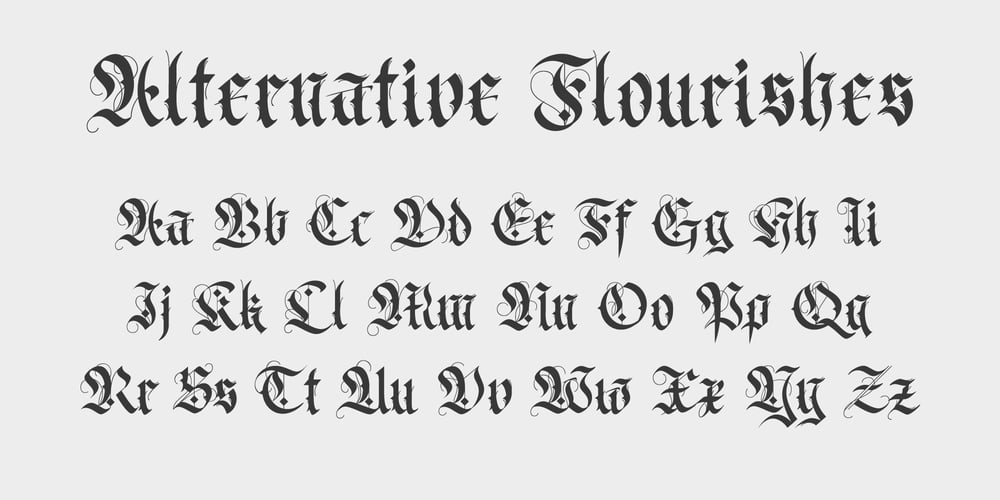
Frakturata Font Family was designed by Ricardo Patiño and published by RicardoLetters. Frakturata contains 3 styles and family package options. EnglishThis font is based on the Gothic fraktur calligraphy dating from the year 1400, but with some modifications of modern calligraphy, it has been created for use in tattoos, calligraffiti, artistic designs for posters, brochures, invitation cards, editorial design among others.Frakturata Blackletter was written with a modern pen and digitized by Ricardo Patiño. The font contains a set of alternate letters and swashed type variations is a perfect typeface for creating beautiful designs and writing.EspañolEsta typografía está basada en la caligrafía Gótica fraktur que data del año 1400, pero con algunas modificaciones de la caligrafía moderna, ha sido creada para usarla en tatuajes, calligraffiti, Diseños artísticos de carteles, folletos,tarjetas de invitación, diseño editorial entre otros.Frakturata Blackletter fue escrita con una pluma moderna y digitalizada por Ricardo Patiño. La fuente contiene un conjunto de letras alternativas y variaciones tipo swashed es una tipografía perfecta para crear hermosos diseños y escritos.